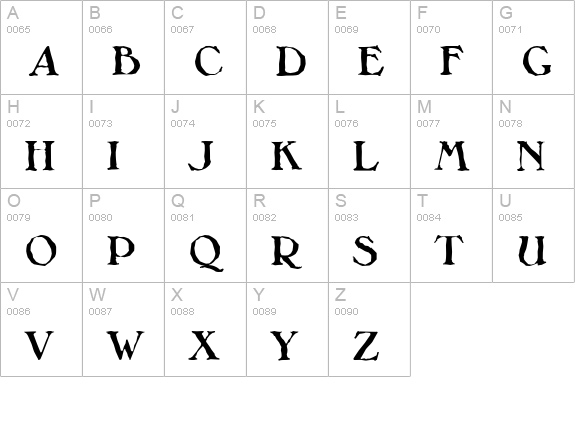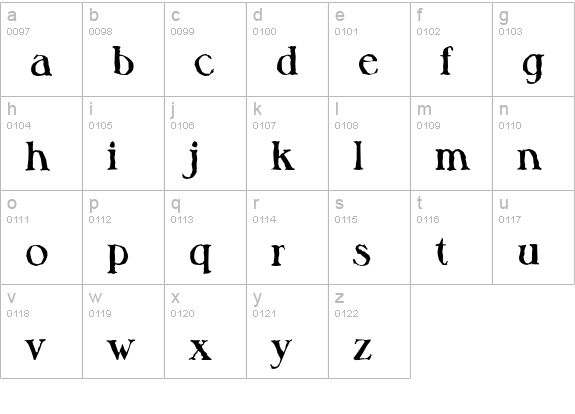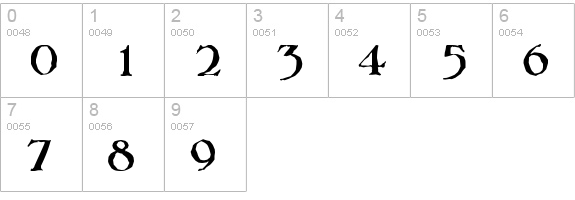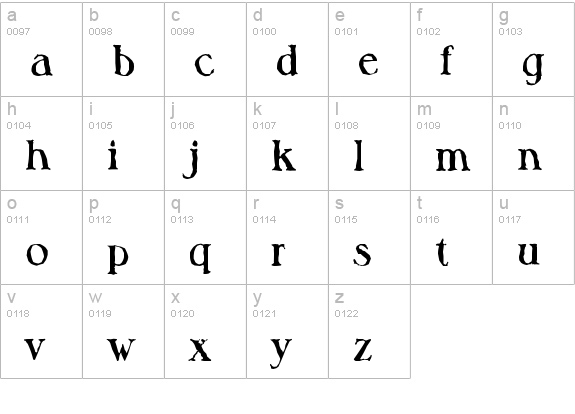
MelbourneAntique-Bold Font Details
MelbourneAntique-Bold is a strong, high-contrast variant in the MelbourneAntique typeface family \xE2\x80\x94 well suited to headlines, attention-grabbing titles, and strong calls-to-action.
MelbourneAntique-Bold is a timeless and elegant font that exudes sophistication and charm. Its classic yet modern design makes it perfect for a wide range of projects, from vintage-inspired branding to formal invitations. The bold weight of this font adds a touch of drama and emphasis, making it ideal for headlines and titles. What sets MelbourneAntique-Bold apart is its intricate details and ornate flourishes, giving it a unique and distinctive character. Whether you're looking to add a touch of old-world charm to your designs or make a bold statement, this font has you covered. Best of all, MelbourneAntique-Bold is available for free download at FontsMarket.com. Don't miss out on this opportunity to elevate your designs with this stunning font. Download it today and bring a touch of timeless elegance to your projects.